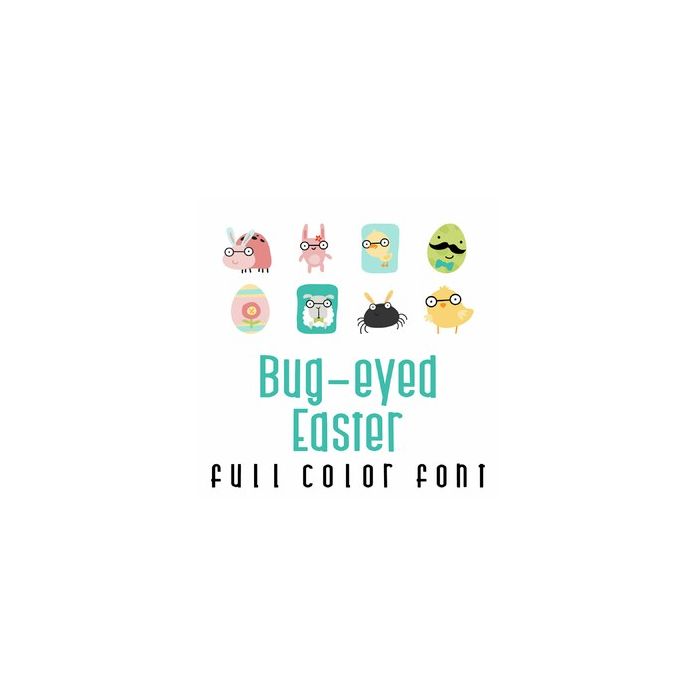
This adorable full-color doodlebat font features 26 adorable bug-eyed animals and insects ready for Easter. Perfect for cards, crafts, gifts, decor, scrapbook pages, planner stickers, and more!